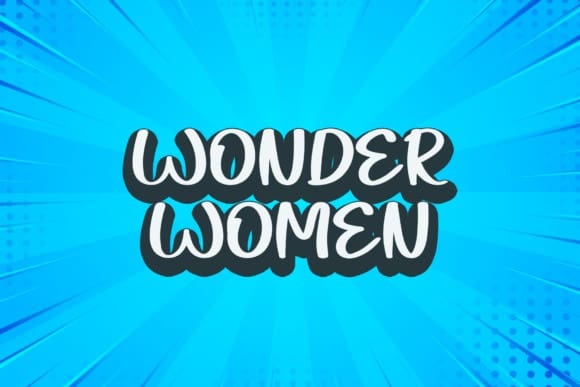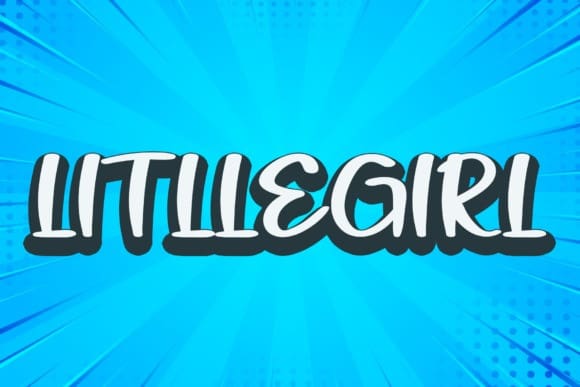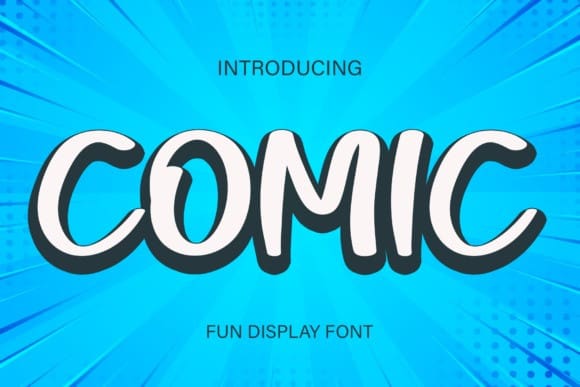
Comic Fun Font
Comic Fun Font is a cool and modern handwritten font. Whether you’re using it for crafts, digital design, presentations, or making greeting cards, this font has the potential to become your favorite go-to font, no matter the occasion.